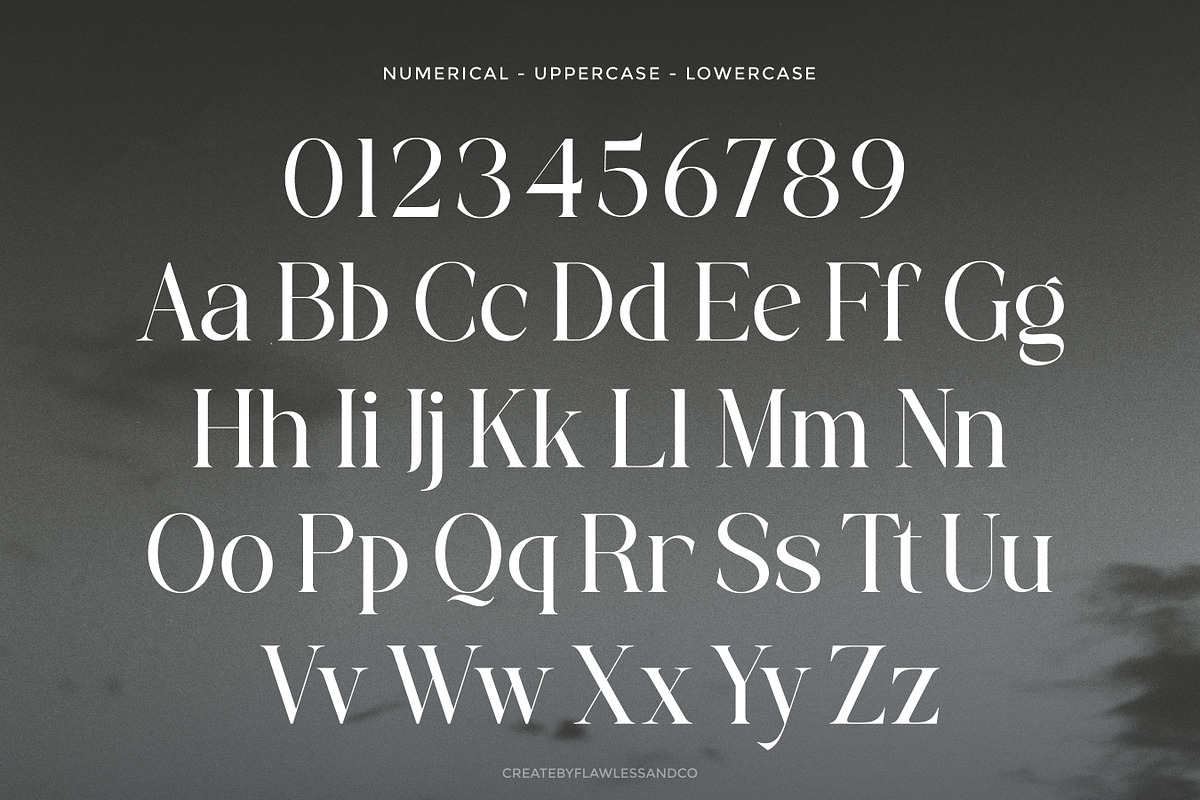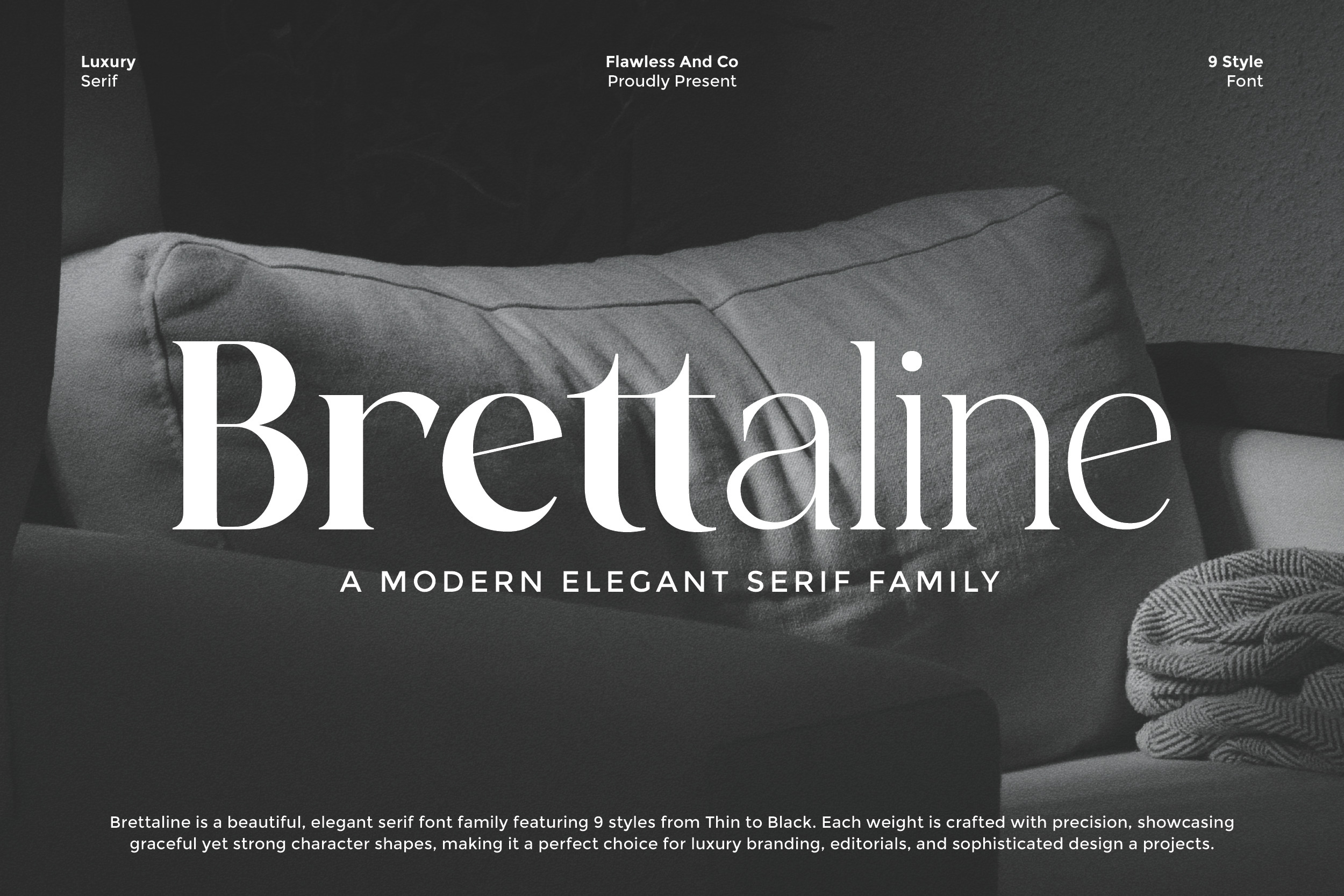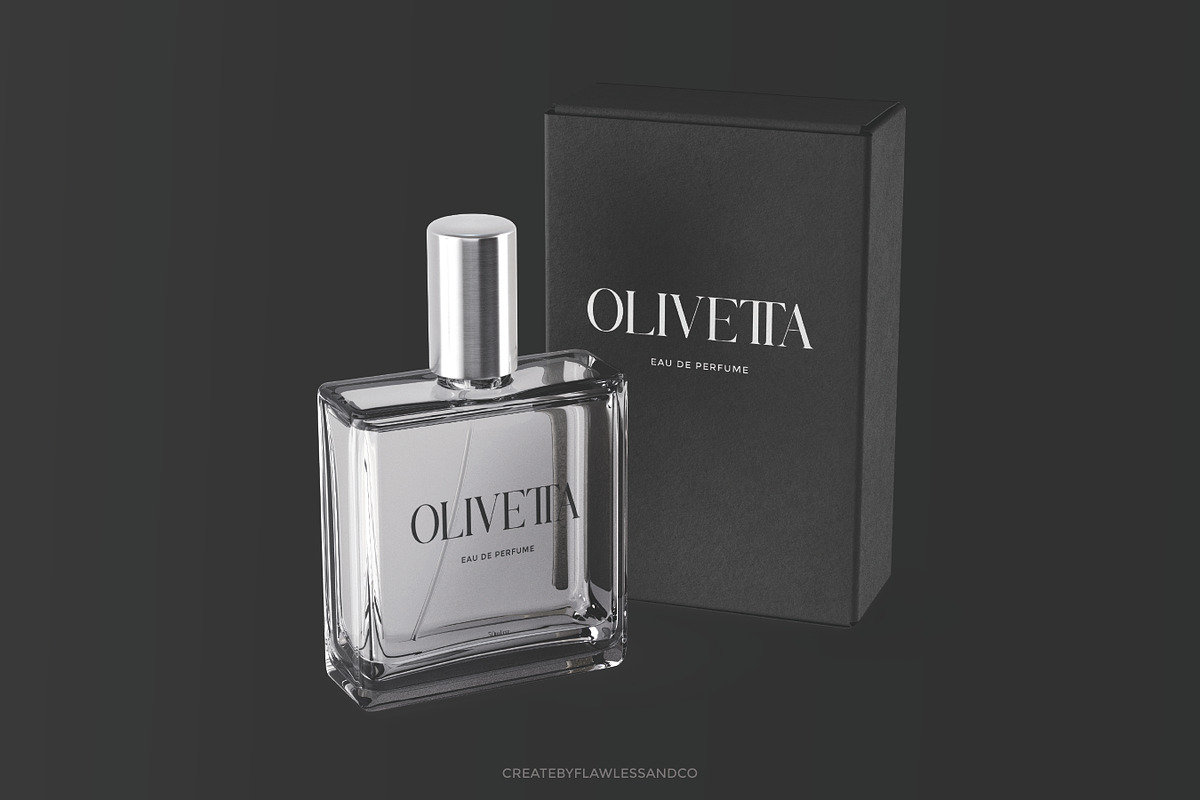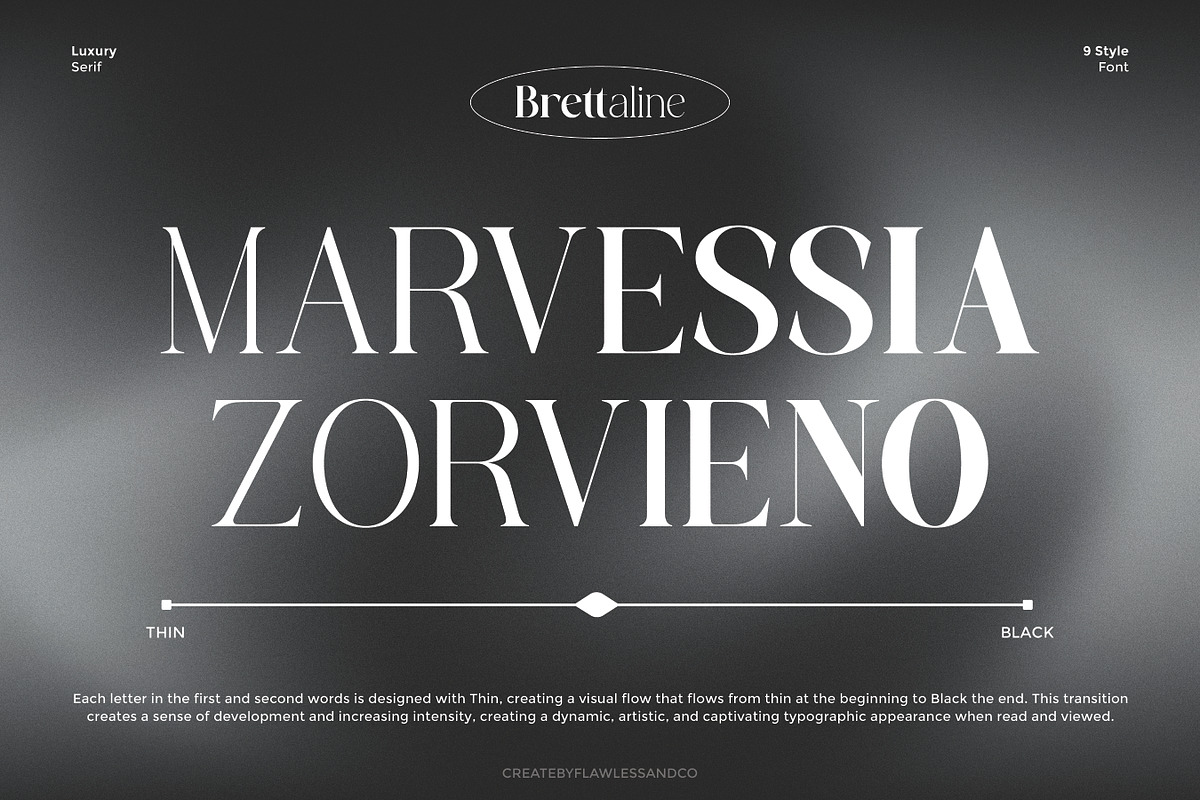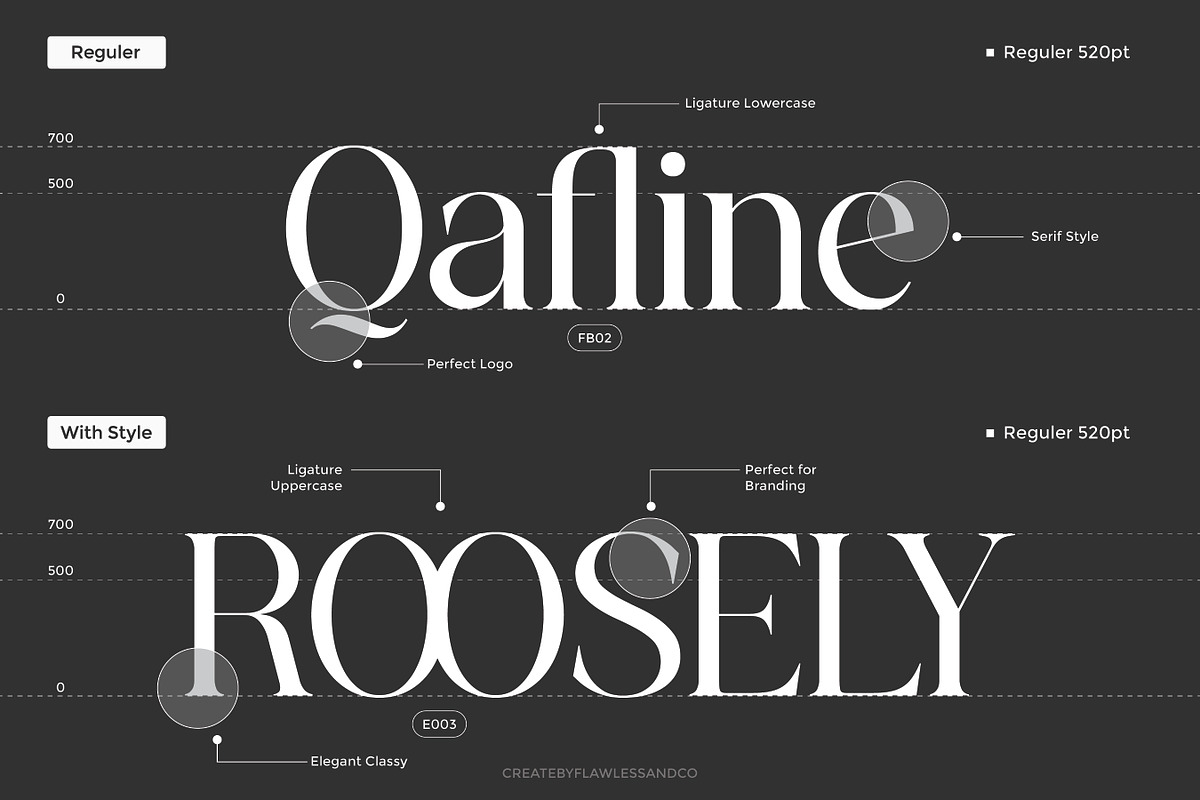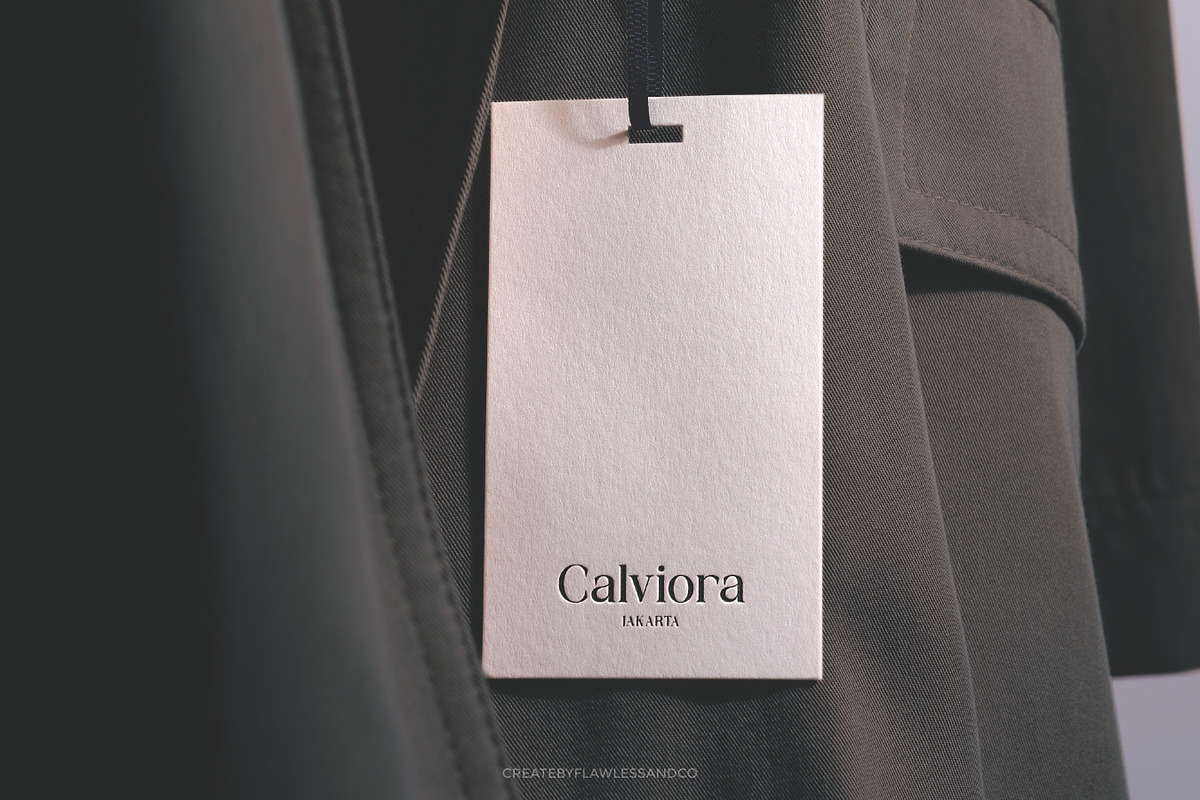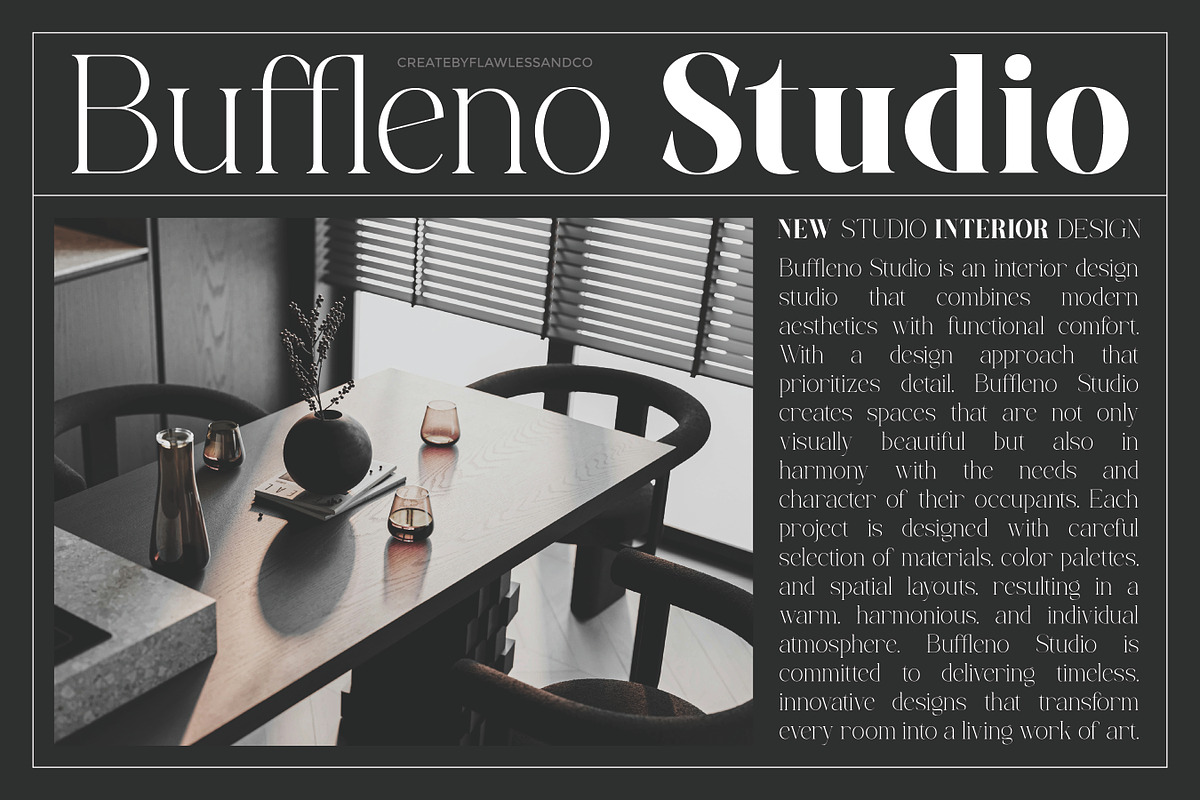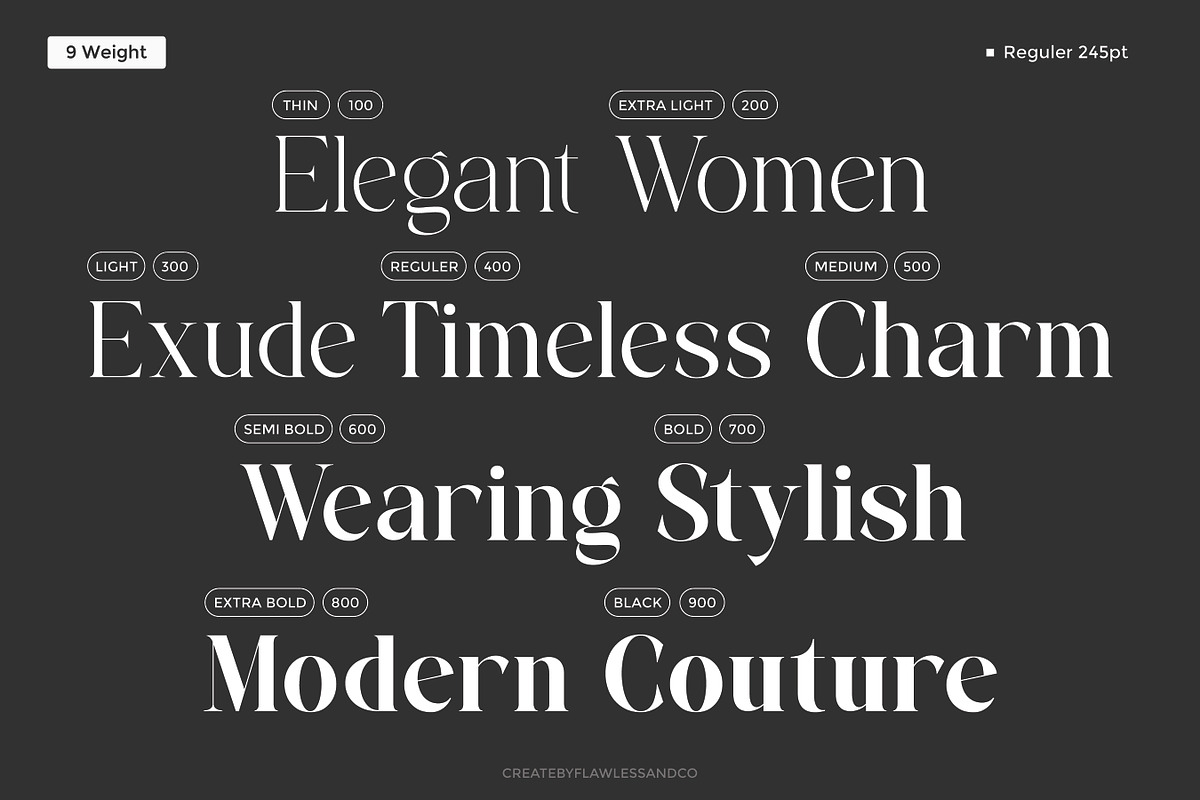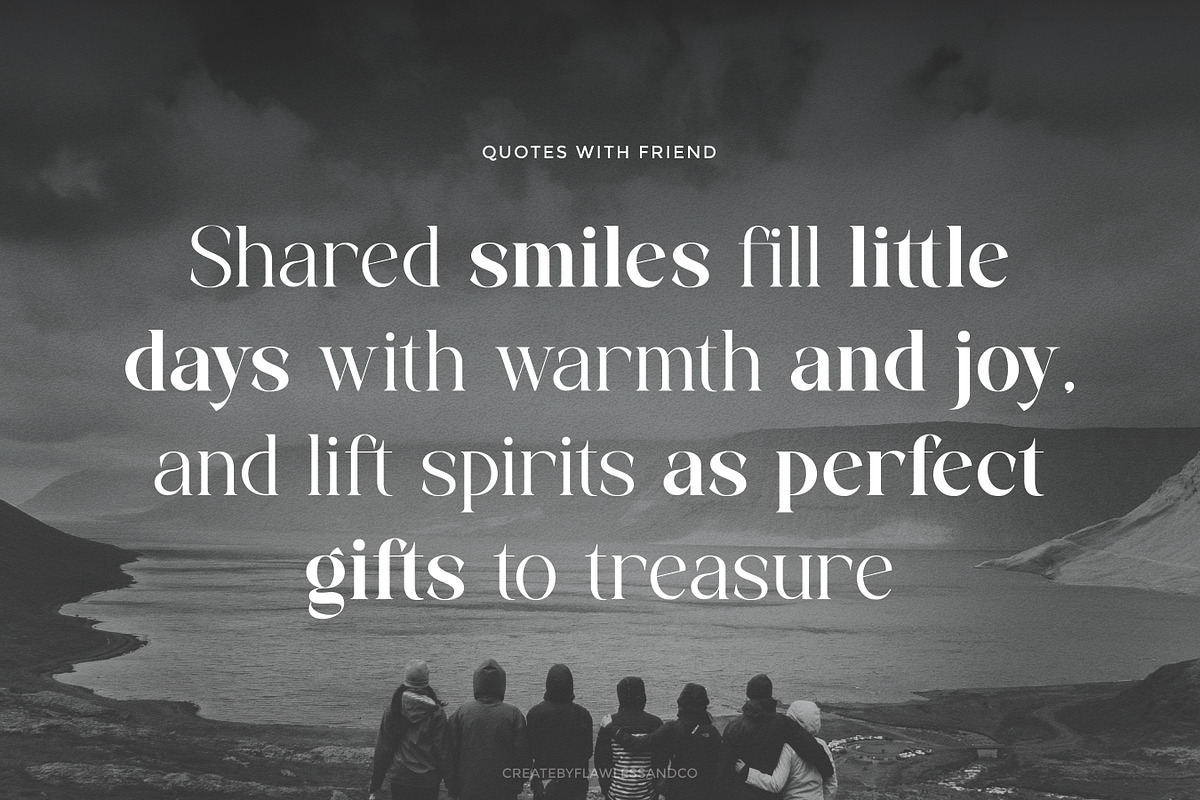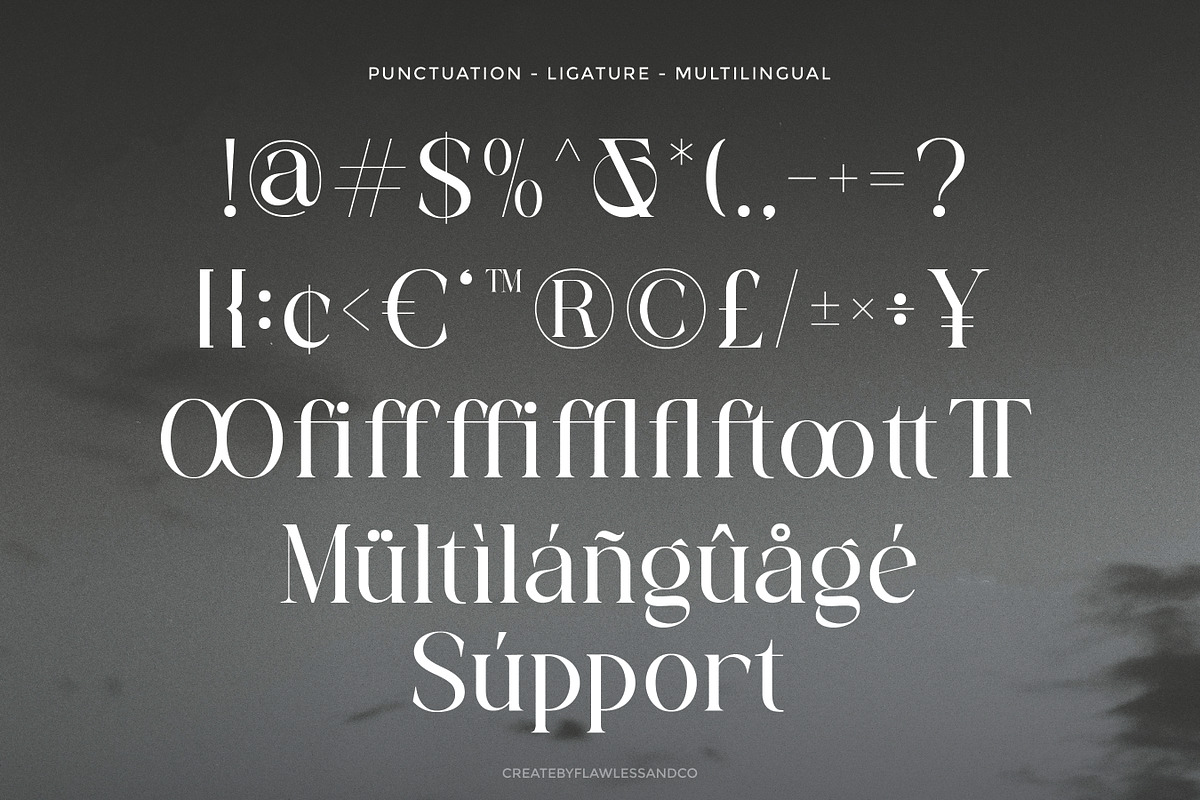
Brettaline - Family Serif Font
Brettaline - Elegant Serif Family Font
Brettaline is a modern elegant serif family that blends timeless beauty with contemporary refinement. Featuring 9 styles from Thin to Black, each weight is thoughtfully designed to convey sophistication and balance. With its graceful curves, sharp serifs, and refined proportions, Brettaline captures the essence of modern luxury and editorial charm. Perfectly suited for branding, magazines, packaging, and creative projects that demand elegance and class, Brettaline adds a touch of modern sophistication to any visual composition.
Who Should Use Brettaline?
Brettaline is perfect for designers, creatives, and brands who appreciate refined and timeless typography.
It’s ideal for:
- Fashion and luxury brands seeking a modern, elegant aesthetic
- Editorial and magazine layouts that need stylish, high-end type
- Creative agencies working on premium branding and identity projects
- Product packaging and stationery with a sophisticated touch
- Social media designers looking to elevate visual storytelling
A Must-Have Font for "Brand and Logo" Creators and Designers
Brettaline is a must-have for brand and logo creators who value sophistication and charm in their design work. Its refined letterforms and graceful details make it the perfect choice for crafting memorable brand marks, stylish wordmarks, and timeless visual identities. Whether for fashion, lifestyle, or creative projects, Brettaline brings elegance and distinction to every design.
Why Choose Brettaline for "Brand and Logo" Projects?
Brettaline stands out as the perfect font for brand and logo projects because of its refined beauty and modern elegance. Every curve and stroke is crafted to convey sophistication, making your designs look professional and timeless. It adds a touch of luxury and creativity to any visual identity—perfect for brands that aim to express confidence, style, and high-quality aesthetics. Whether for boutique logos, fashion labels, or lifestyle branding, Brettaline helps your work leave a lasting impression.
Suitable For
- Brand identities and logo design
- Fashion, beauty, and lifestyle projects
- Wedding invitations and stationery design
- Editorial layouts and magazine covers
- Product packaging and label design
- Social media posts and marketing materials
- Creative branding for boutique and luxury businesses